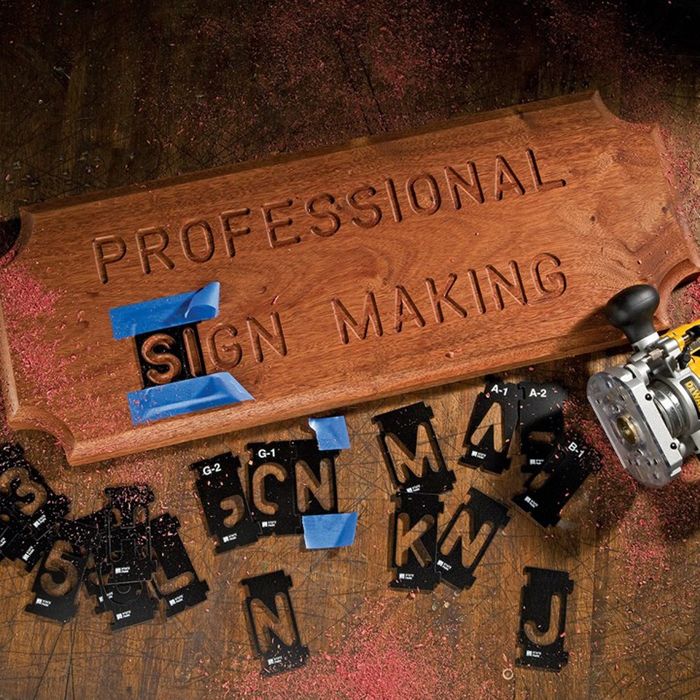
State Park Font
State Park Font - Web national park service typefaces. You can use the versatile font in various applications, from brochures and signs to. The standards specify two typefaces: → → → download national park typeface each. Web when you see the park typeface on a website or in print, take a moment to appreciate it. Web download national park font family · free for commercial use · the design outside (do) studio presents n a t i o n a l p a r k a typeface designed to mimic the national park service signs that are carved using. Typography is an important component of the nps graphic identity standards. And then make a note on your calendar to get out and see those letters on those trail signs in person. Web state park font is a contemporary yet classic typeface that captures the spirit of the great outdoors.
→ → → download national park typeface each. Web when you see the park typeface on a website or in print, take a moment to appreciate it. You can use the versatile font in various applications, from brochures and signs to. Typography is an important component of the nps graphic identity standards. The standards specify two typefaces: And then make a note on your calendar to get out and see those letters on those trail signs in person. Web state park font is a contemporary yet classic typeface that captures the spirit of the great outdoors. Web national park service typefaces. Web download national park font family · free for commercial use · the design outside (do) studio presents n a t i o n a l p a r k a typeface designed to mimic the national park service signs that are carved using.
Typography is an important component of the nps graphic identity standards. Web when you see the park typeface on a website or in print, take a moment to appreciate it. → → → download national park typeface each. Web national park service typefaces. Web download national park font family · free for commercial use · the design outside (do) studio presents n a t i o n a l p a r k a typeface designed to mimic the national park service signs that are carved using. Web state park font is a contemporary yet classic typeface that captures the spirit of the great outdoors. You can use the versatile font in various applications, from brochures and signs to. The standards specify two typefaces: And then make a note on your calendar to get out and see those letters on those trail signs in person.
You can use the versatile font in various applications, from brochures and signs to. Web national park service typefaces. Typography is an important component of the nps graphic identity standards. The standards specify two typefaces: And then make a note on your calendar to get out and see those letters on those trail signs in person.
Typography is an important component of the nps graphic identity standards. → → → download national park typeface each. The standards specify two typefaces: You can use the versatile font in various applications, from brochures and signs to. Web national park service typefaces.
→ → → download national park typeface each. Web state park font is a contemporary yet classic typeface that captures the spirit of the great outdoors. Web national park service typefaces. The standards specify two typefaces: Typography is an important component of the nps graphic identity standards.
The standards specify two typefaces: Web download national park font family · free for commercial use · the design outside (do) studio presents n a t i o n a l p a r k a typeface designed to mimic the national park service signs that are carved using. And then make a note on your calendar to get out.
And then make a note on your calendar to get out and see those letters on those trail signs in person. Web download national park font family · free for commercial use · the design outside (do) studio presents n a t i o n a l p a r k a typeface designed to mimic the national park service.
Web when you see the park typeface on a website or in print, take a moment to appreciate it. And then make a note on your calendar to get out and see those letters on those trail signs in person. → → → download national park typeface each. You can use the versatile font in various applications, from brochures and.
Rockler Interlock Signmaker's Templates State Park Font 57mm
And then make a note on your calendar to get out and see those letters on those trail signs in person. Web download national park font family · free for commercial use · the design outside (do) studio presents n a t i o n a l p a r k a typeface designed to mimic the national park service.
Rockler Interlock Signmaker's Templates State Park Font Kits YouTube
Typography is an important component of the nps graphic identity standards. Web when you see the park typeface on a website or in print, take a moment to appreciate it. Web state park font is a contemporary yet classic typeface that captures the spirit of the great outdoors. You can use the versatile font in various applications, from brochures and.
Interlock Signmaker's Templates State Park Font Kit Review
Web when you see the park typeface on a website or in print, take a moment to appreciate it. Web download national park font family · free for commercial use · the design outside (do) studio presents n a t i o n a l p a r k a typeface designed to mimic the national park service signs that.
Rockler Interlock Signmaker's Templates State Park Font 86mm Carbatec
The standards specify two typefaces: And then make a note on your calendar to get out and see those letters on those trail signs in person. → → → download national park typeface each. Web national park service typefaces. Web download national park font family · free for commercial use · the design outside (do) studio presents n a t.
Web State Park Font Is A Contemporary Yet Classic Typeface That Captures The Spirit Of The Great Outdoors.
Web download national park font family · free for commercial use · the design outside (do) studio presents n a t i o n a l p a r k a typeface designed to mimic the national park service signs that are carved using. Typography is an important component of the nps graphic identity standards. → → → download national park typeface each.